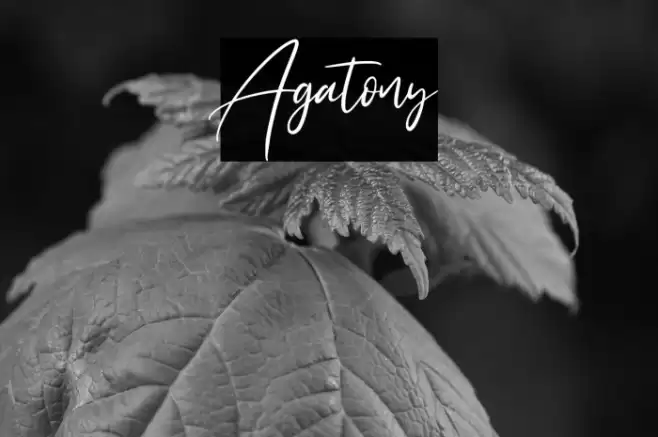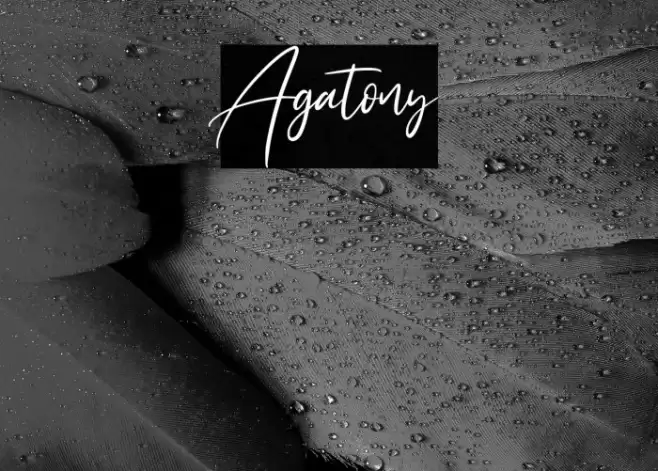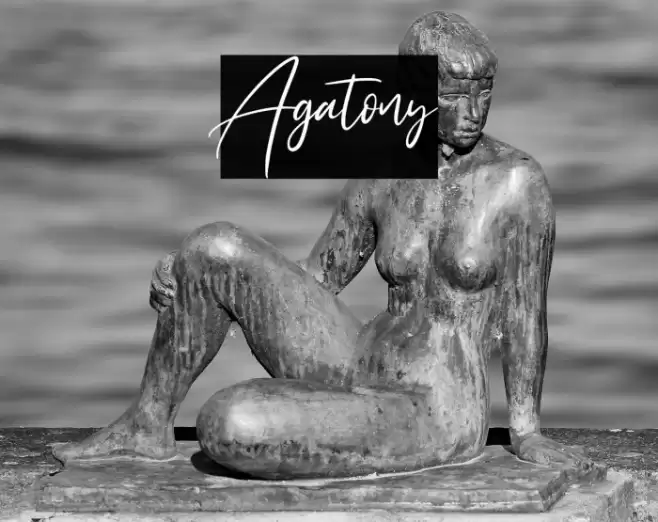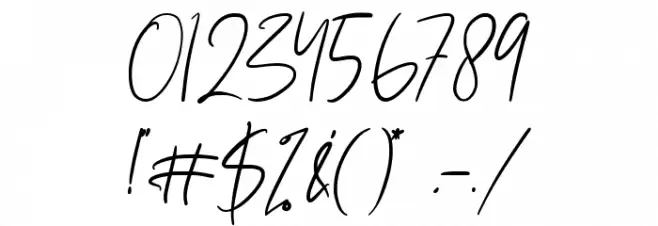
Agatony Font
Agatony Description
This font features a dynamic and fluid handwritten style, characterized by its elegant and flowing script. The letters are connected with smooth, sweeping strokes, giving it a personal and artistic touch. The uppercase letters are bold and prominent, while the lowercase letters maintain a consistent flow, enhancing readability. The numerals and special characters are crafted with the same attention to detail, ensuring a cohesive look across all elements. This font exudes a sense of creativity and sophistication, making it ideal for projects that require a personal or artistic flair.
A fluid and elegant handwritten script font with artistic flair from Uncategorized fonts.